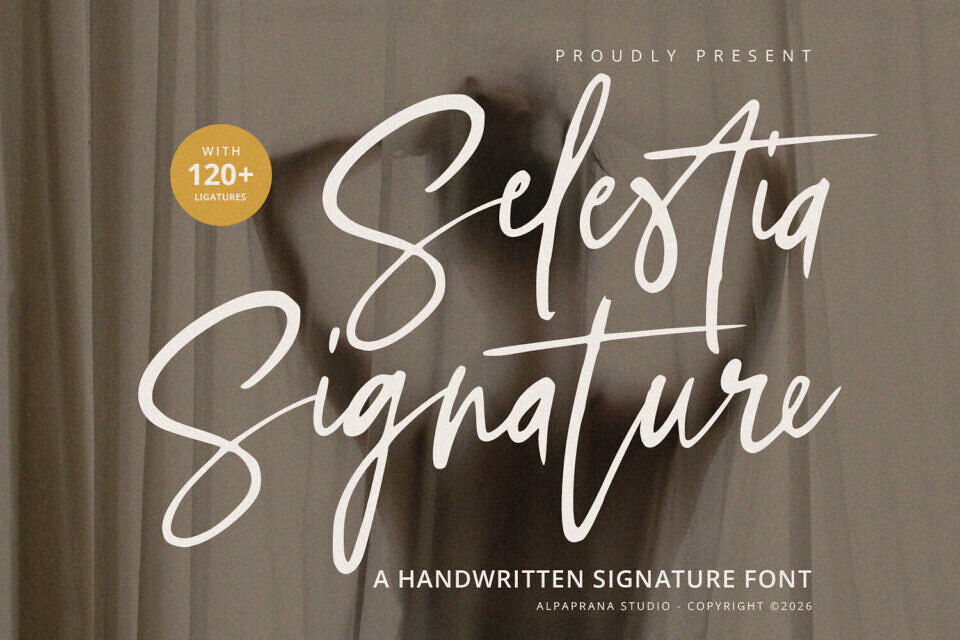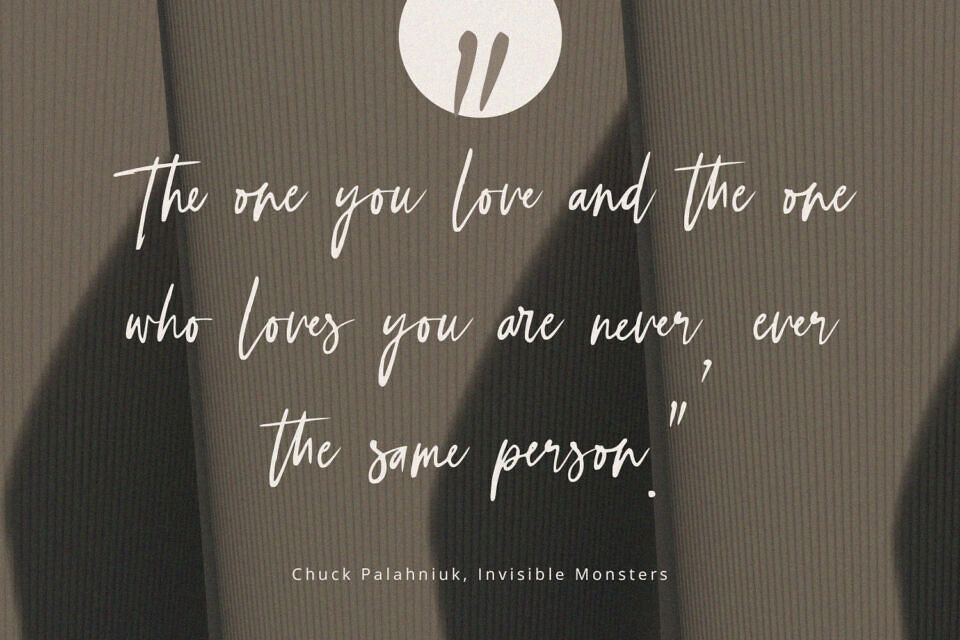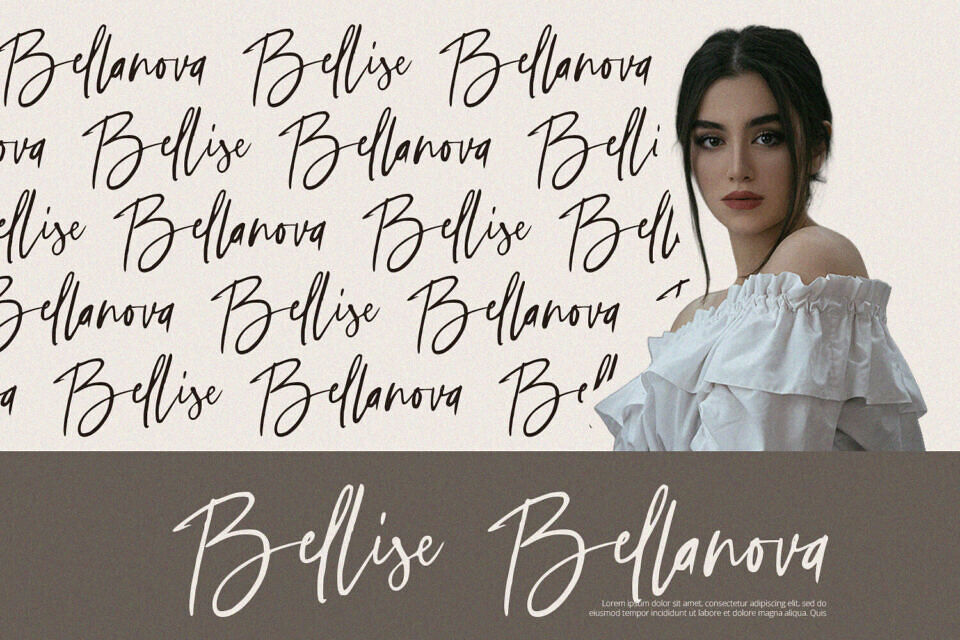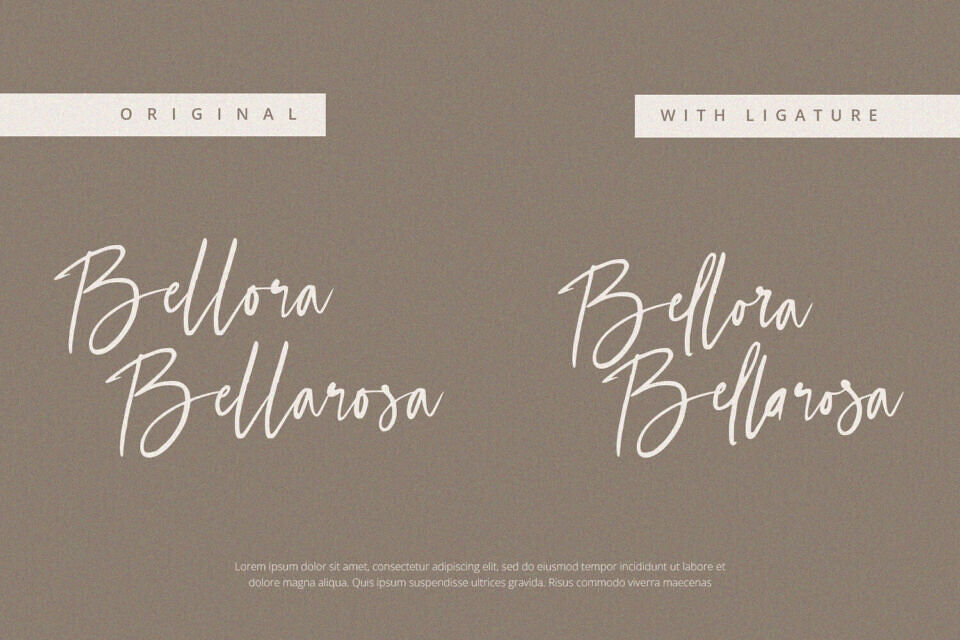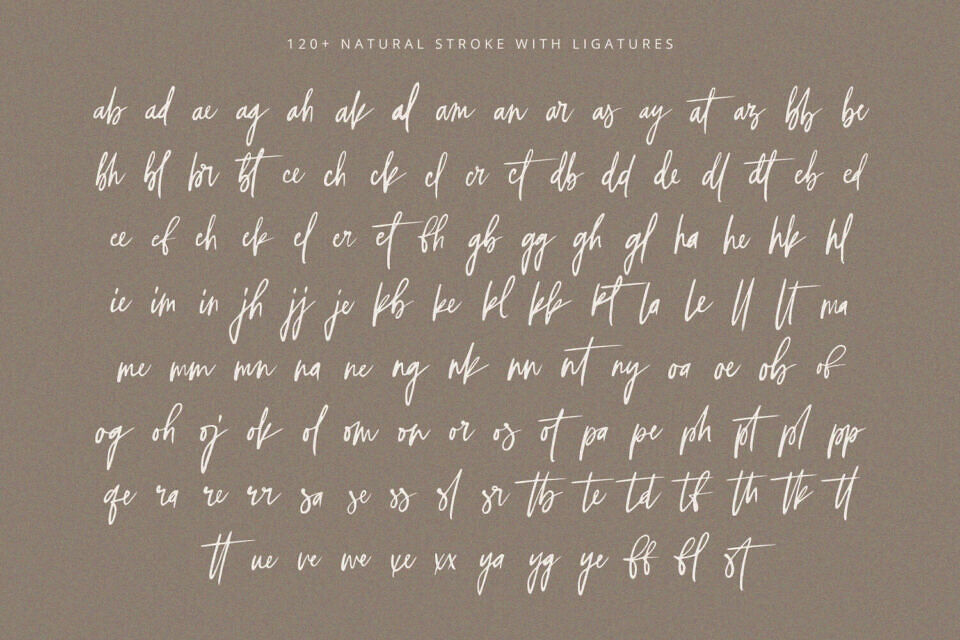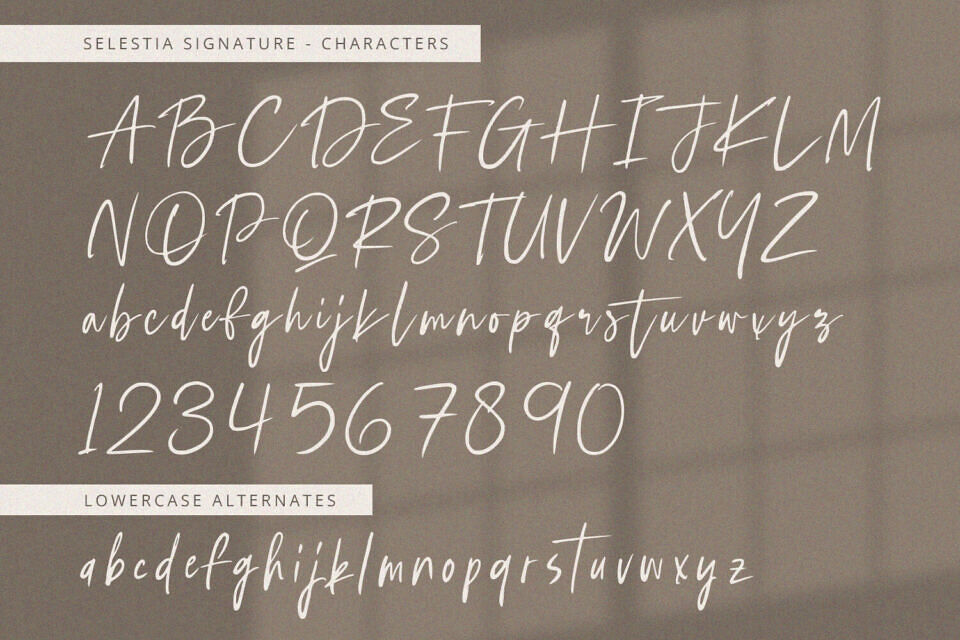
Selestia Signature is a distinct, modern handwritten font. It’s ideal for various design projects, including branding, logos, and lettering, as well as packaging, clothing, and magazine design. This versatile font also suits posters, wedding invitations, book covers, photography, and event materials, making it a great choice for a wide range of creative applications.